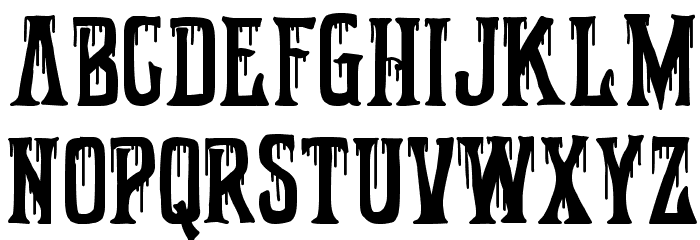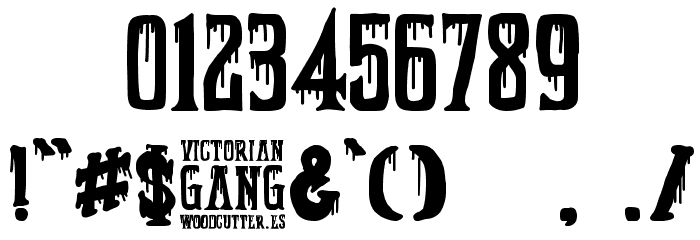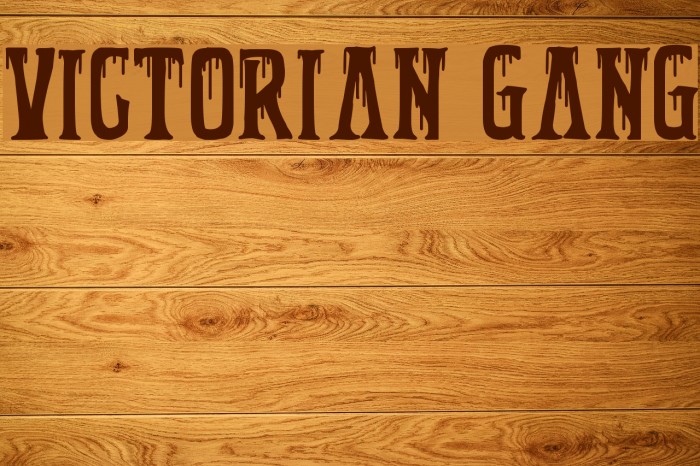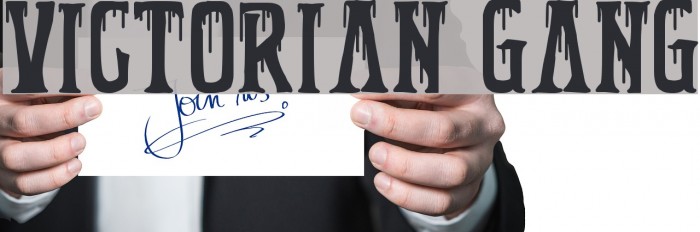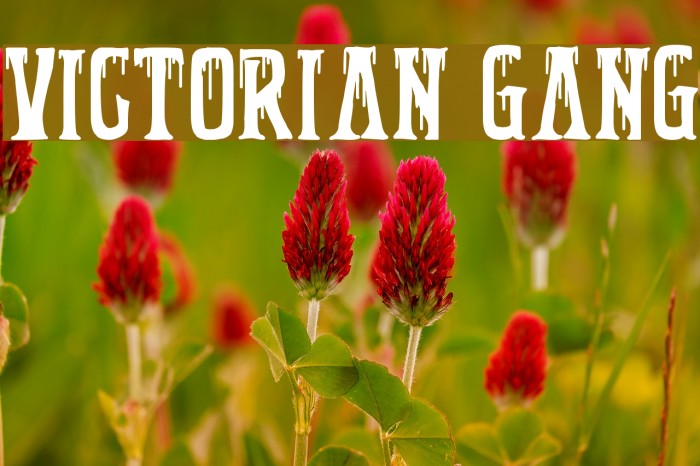
Victorian Gang Font
This font features a bold, decorative style with a Victorian flair, characterized by its ornate and intricate design elements. The uppercase letters are particularly striking, with sharp serifs and a dripping effect that adds a dramatic and somewhat gothic touch. The numbers and special characters maintain this elaborate style, making the font ideal for creating a strong visual impact. Its unique appearance is reminiscent of vintage signage or posters, evoking a sense of nostalgia and historical charm.
A bold, decorative font with a Victorian, gothic-inspired style.
- Proposed Projects: Ideal for vintage-themed posters, Halloween invitations, theatrical event flyers, and branding that requires a dramatic, historical touch.
- Overall Style: Vintage, Gothic, Decorative